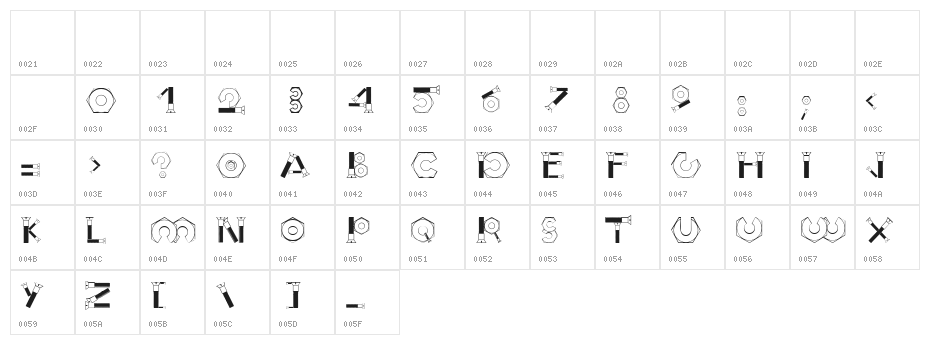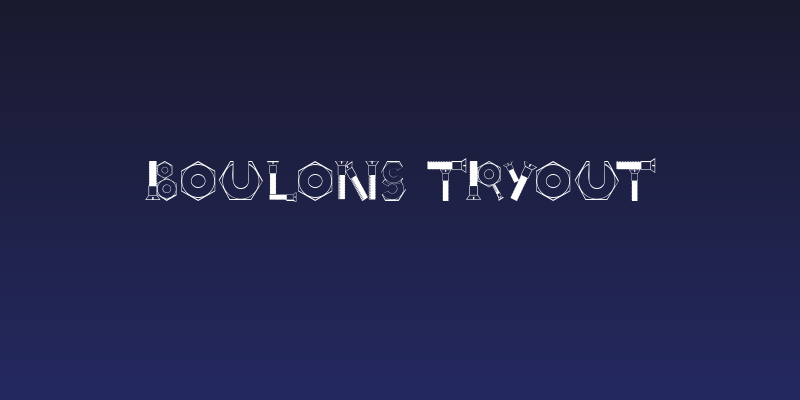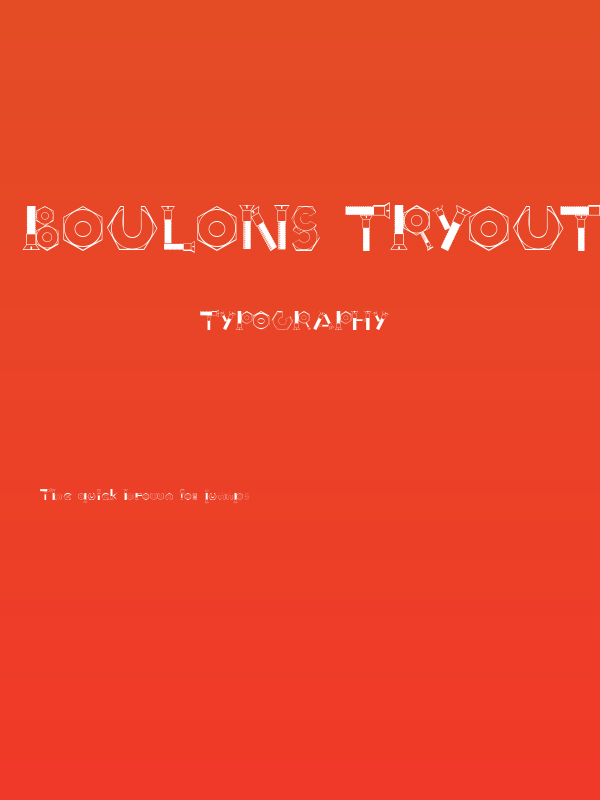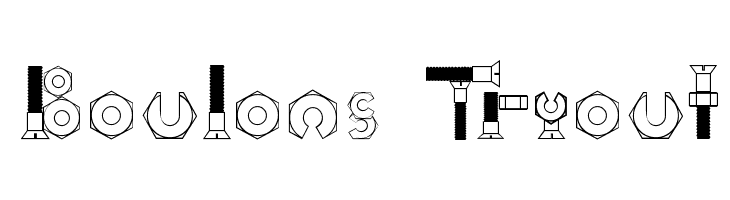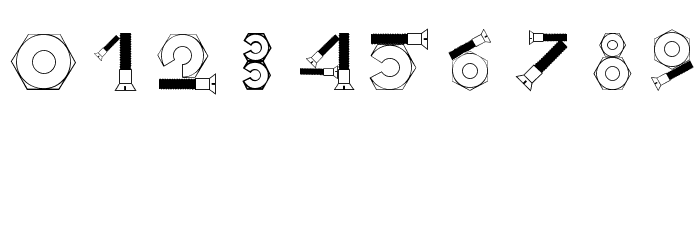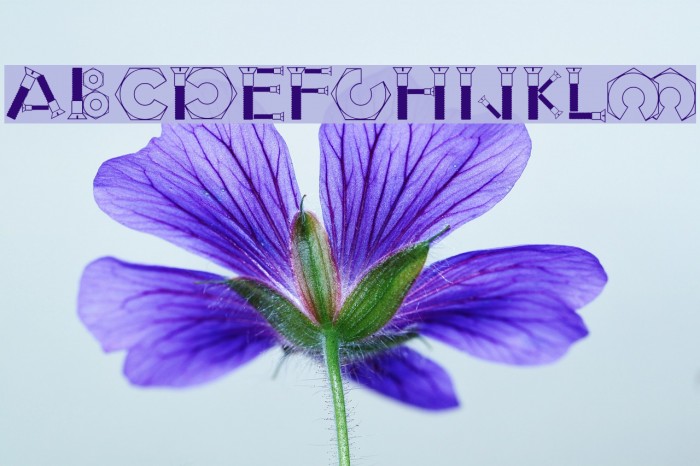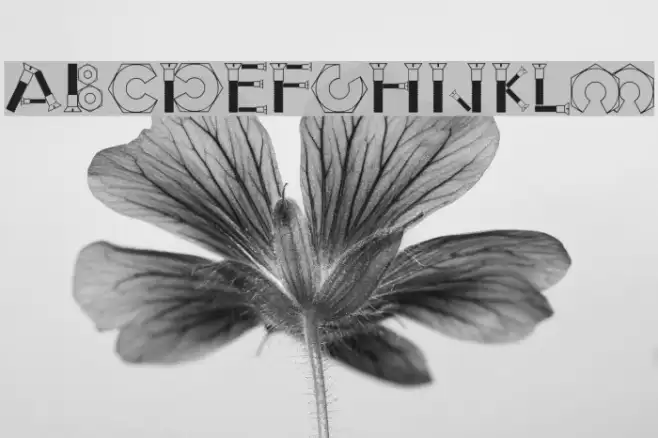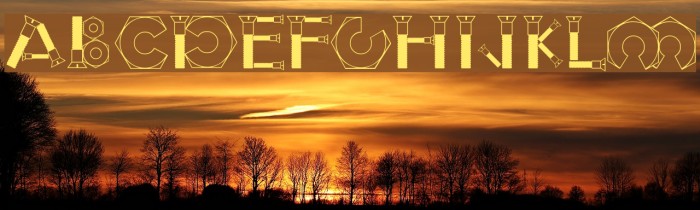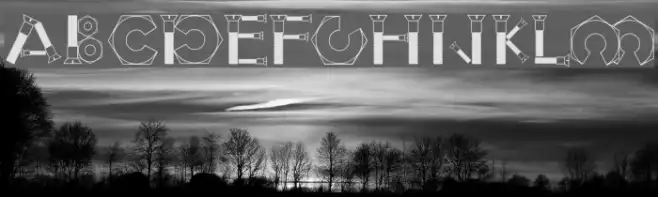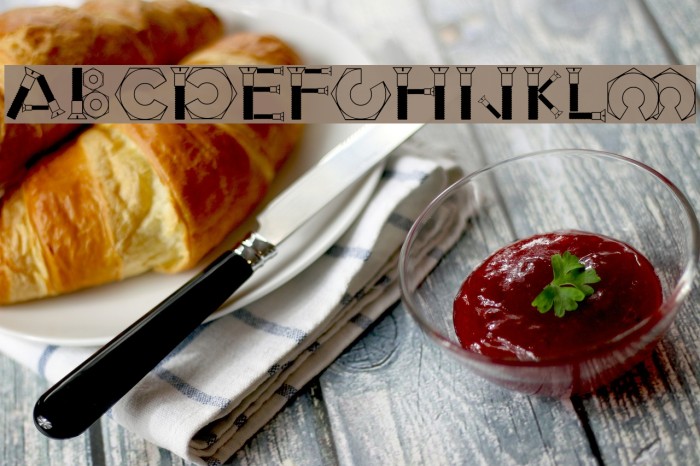
Boulons Tryout Font
Boulons Tryout Description
This font is a creative and playful representation of industrial elements, incorporating bolts, screws, and nuts into the design of each character. The letters and numbers are constructed with a combination of mechanical parts, giving them a unique, three-dimensional appearance. The use of hardware elements makes the font highly decorative and thematic, suitable for projects that require an industrial or mechanical aesthetic. The characters are bold and eye-catching, with a mix of solid and outlined strokes that add depth and interest. The font maintains a consistent style throughout, with each character cleverly integrating the mechanical theme while remaining legible.
BOULONS-TRYOUT UPPERCASE
BOULONS-TRYOUT LOWERCASE
BOULONS-TRYOUT OTHER CHARS
| Use Case | Logos, Posters, Branding |
| Proposed Projects | Ideal for industrial-themed posters, mechanical event invitations, or branding for hardware stores. |